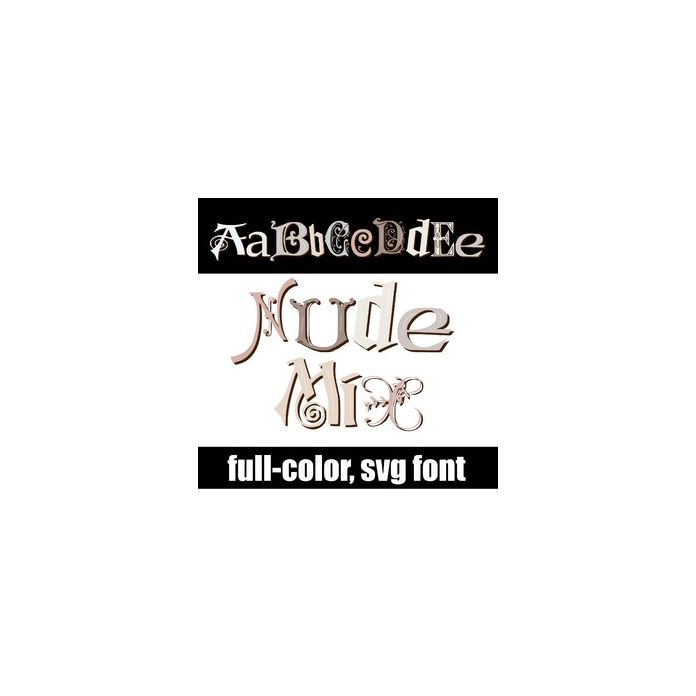
This full-color font features a mix of font styles in a nude color palette. There is an alt version you can access through your system's character map that contains additional colors of all the letters.